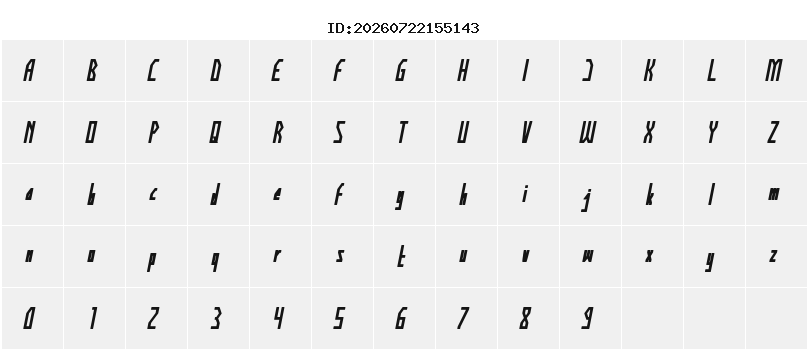
• Font Name: HUMAN ALTER EGO
• Font Style: Gras Italique
• Font ID: HUMAN ALTER EGO Bold Italic:Version 1.00
• Full Font Name: HUMAN ALTER EGO Bold Italic
• Version: Version 1.00 July 25, 2016, initial release
• PostScript Name: HUMANALTEREGO-BoldItalic
About HUMAN ALTER EGO.ttf
HUMAN ALTER EGO.ttf is a modern, elegant sans-serif font designed for ultimate readability and visual harmony. Perfect for branding, headlines, web design, and print materials.